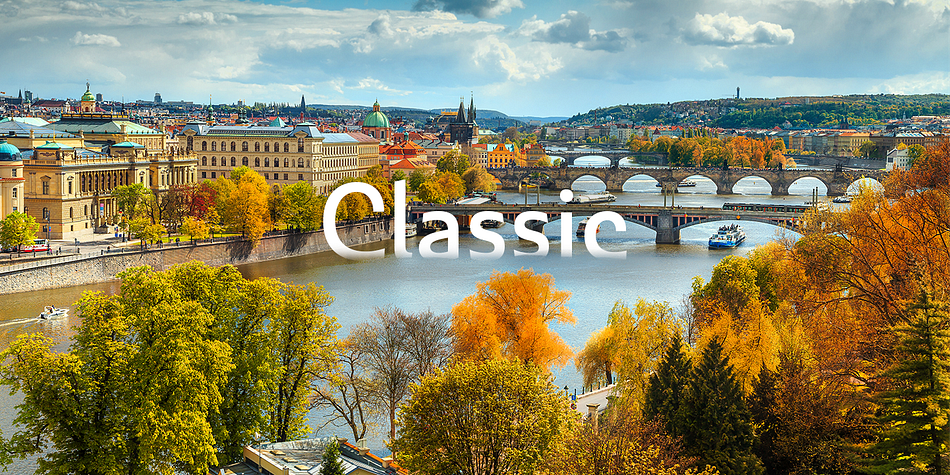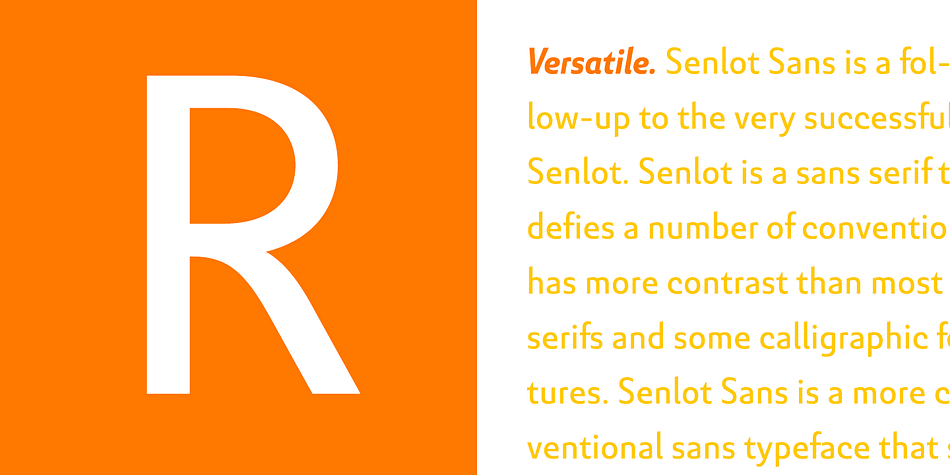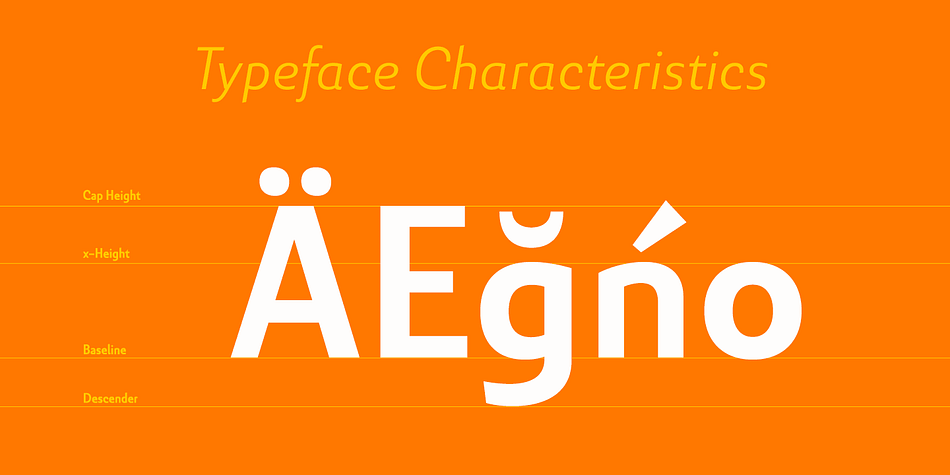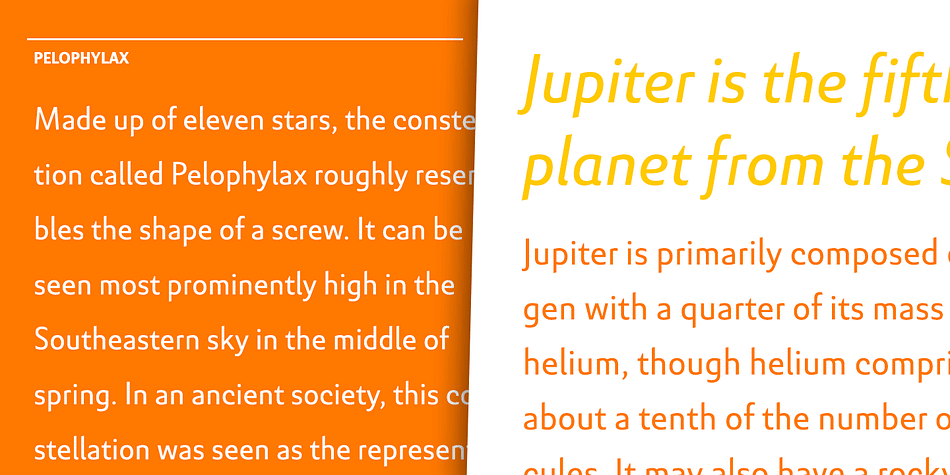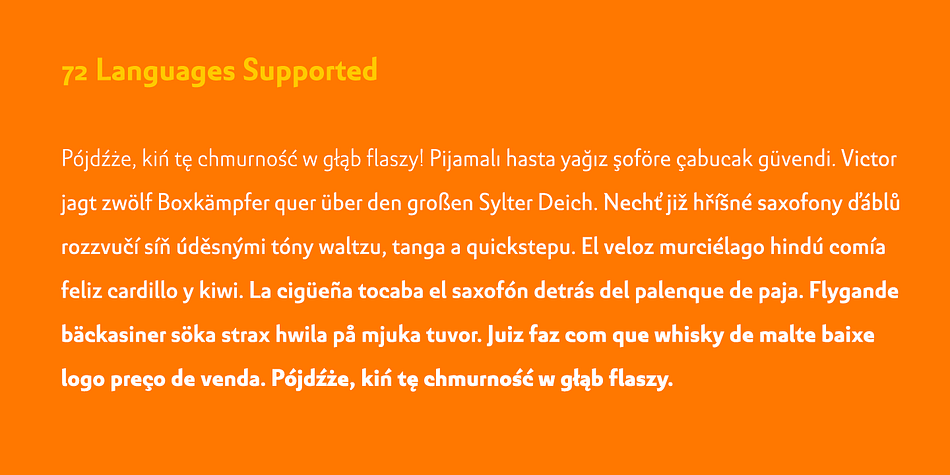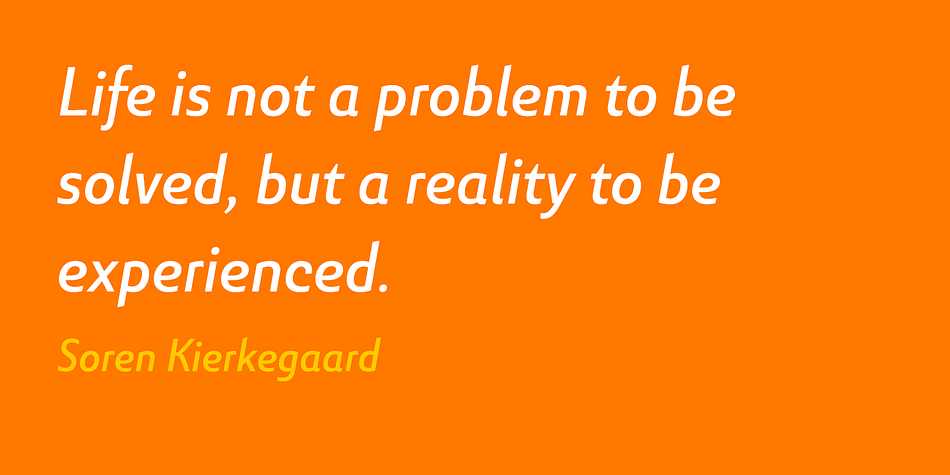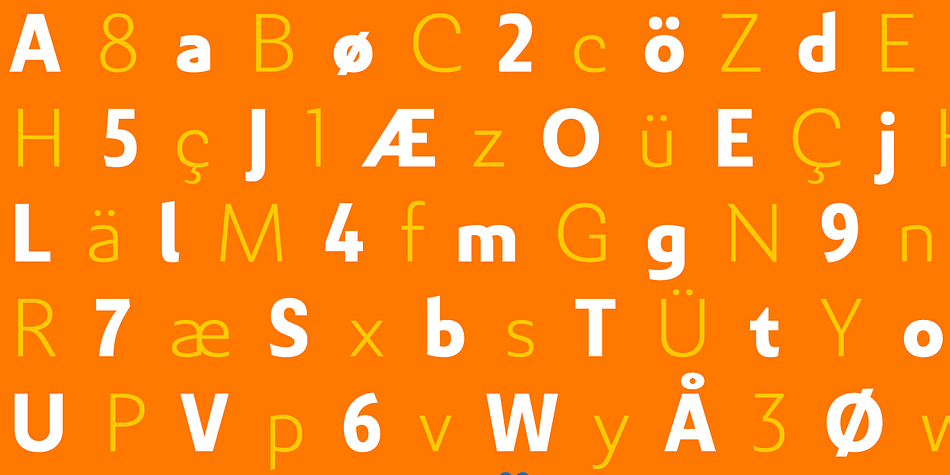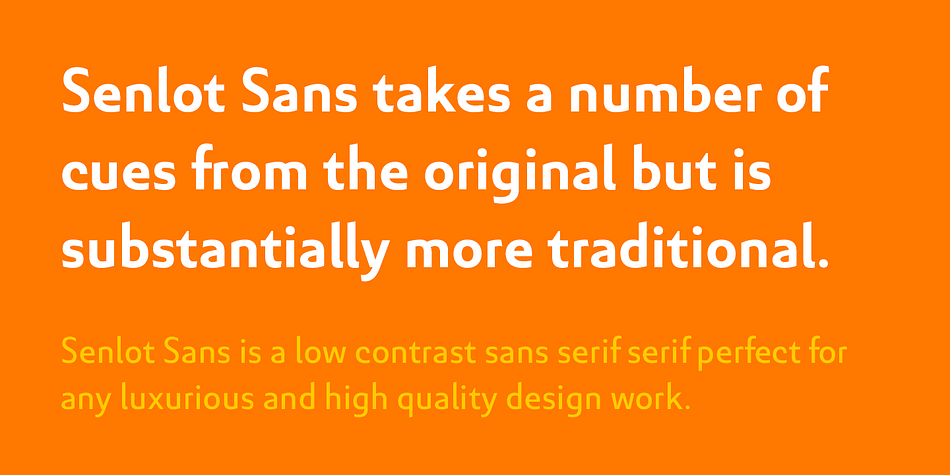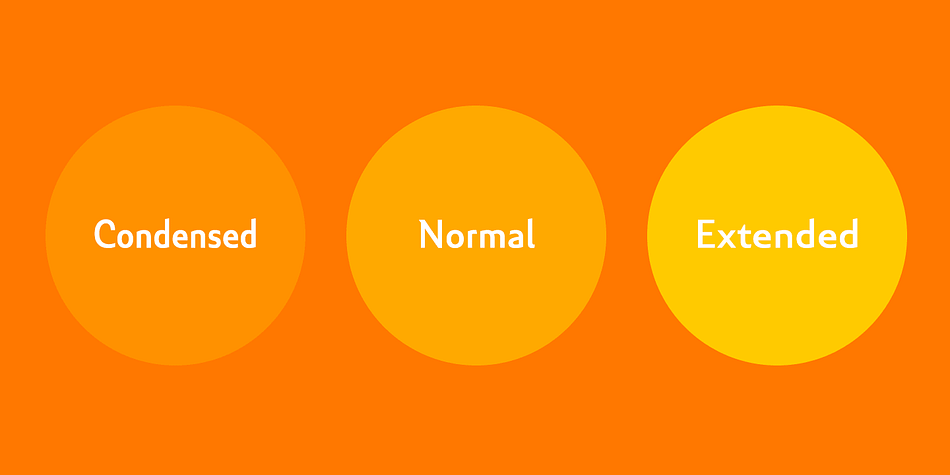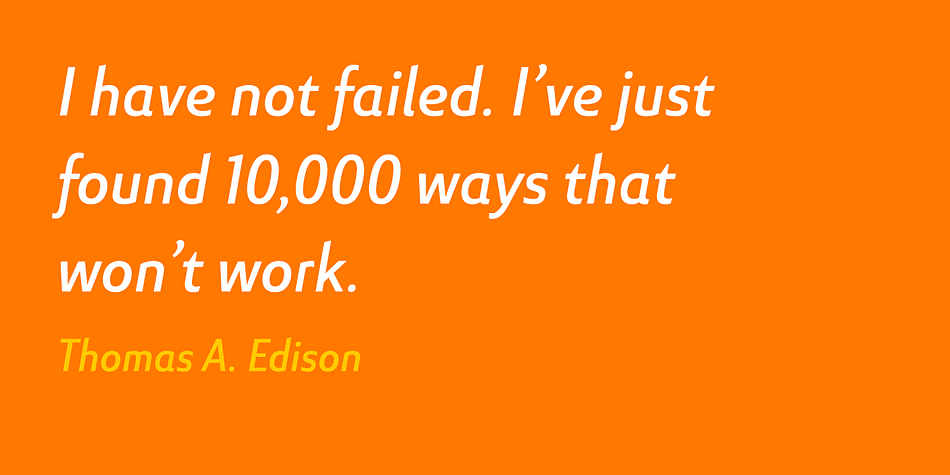
Designed by Jeremy Dooley, Senlot Sans is a sans serif font family. This typeface has fifty-four styles and was published by Insigne Design.
Senlot Sans defies convention. A follow-up to the elegant Senlot, Senlot Sans is anything but another sans serif font in search of character. This new member of the Senlot family, while slightly more traditional than its original cousin, confidently boasts more contrast and most sans serifs on the market and even strides smoothly ahead with some of the original Senlot’s calligraphic features around its simple form.
The rich appearance of Senlot Sans contains a complete set of small capitals and nine weights from thin to bold. Unlock its potential even more with titling capitals, superscripts and subscripts, and open style figures. With its broad palate of variables and options, the font covers over 72 Latin-based languages.
Simple, elegant, and versatile, Senlot Sans now makes perfect more possible. Put the simplicity of this stunning font to work for you.